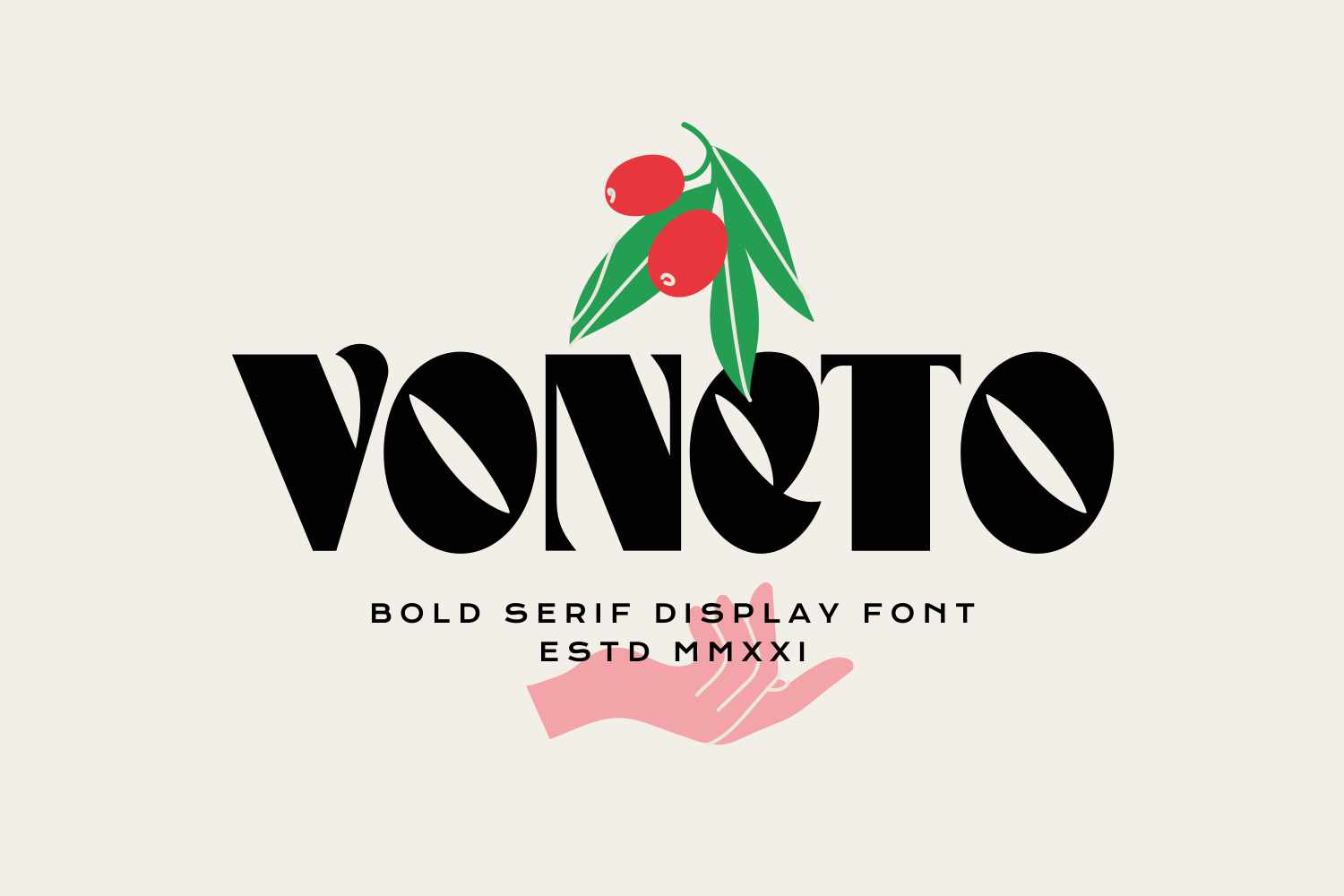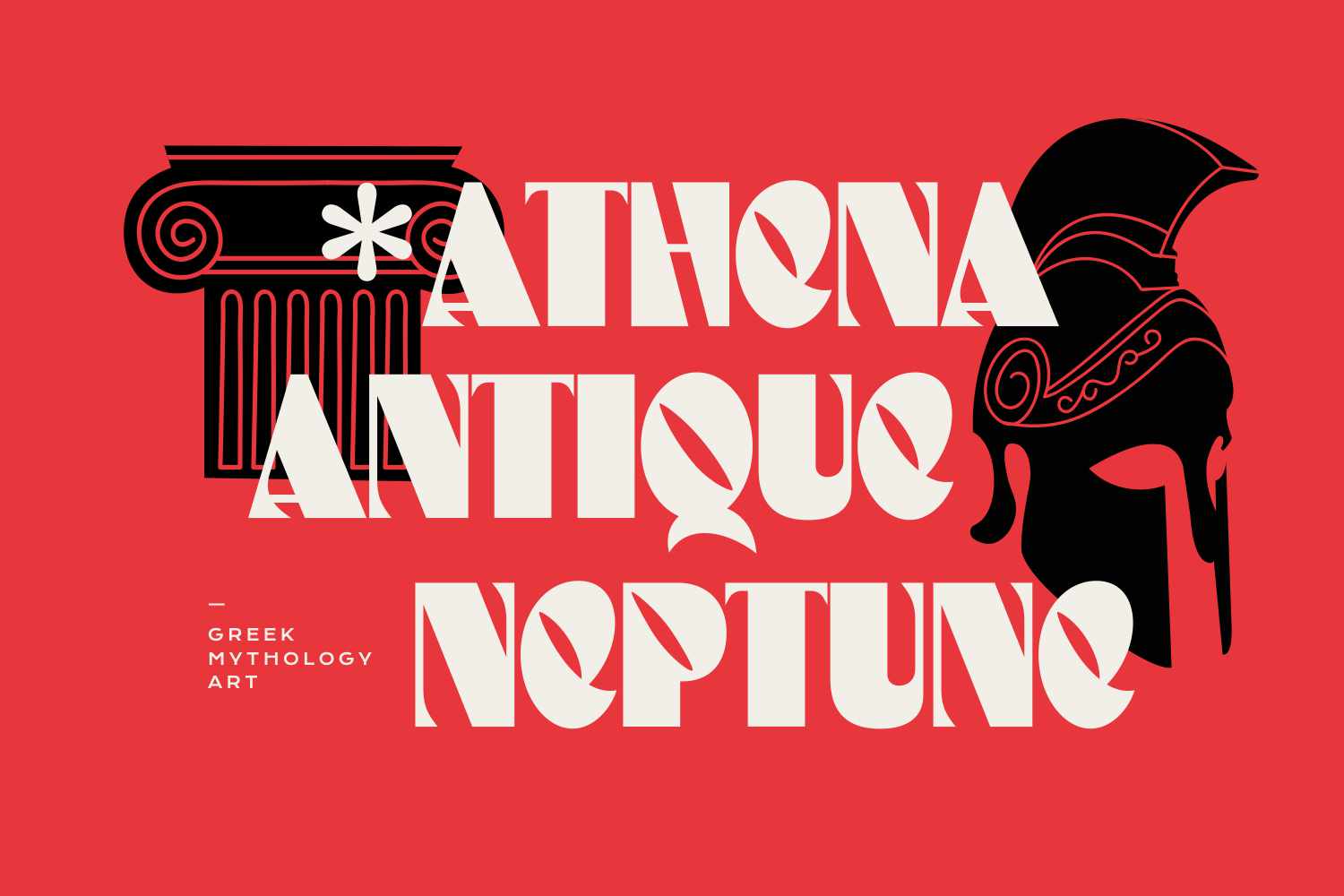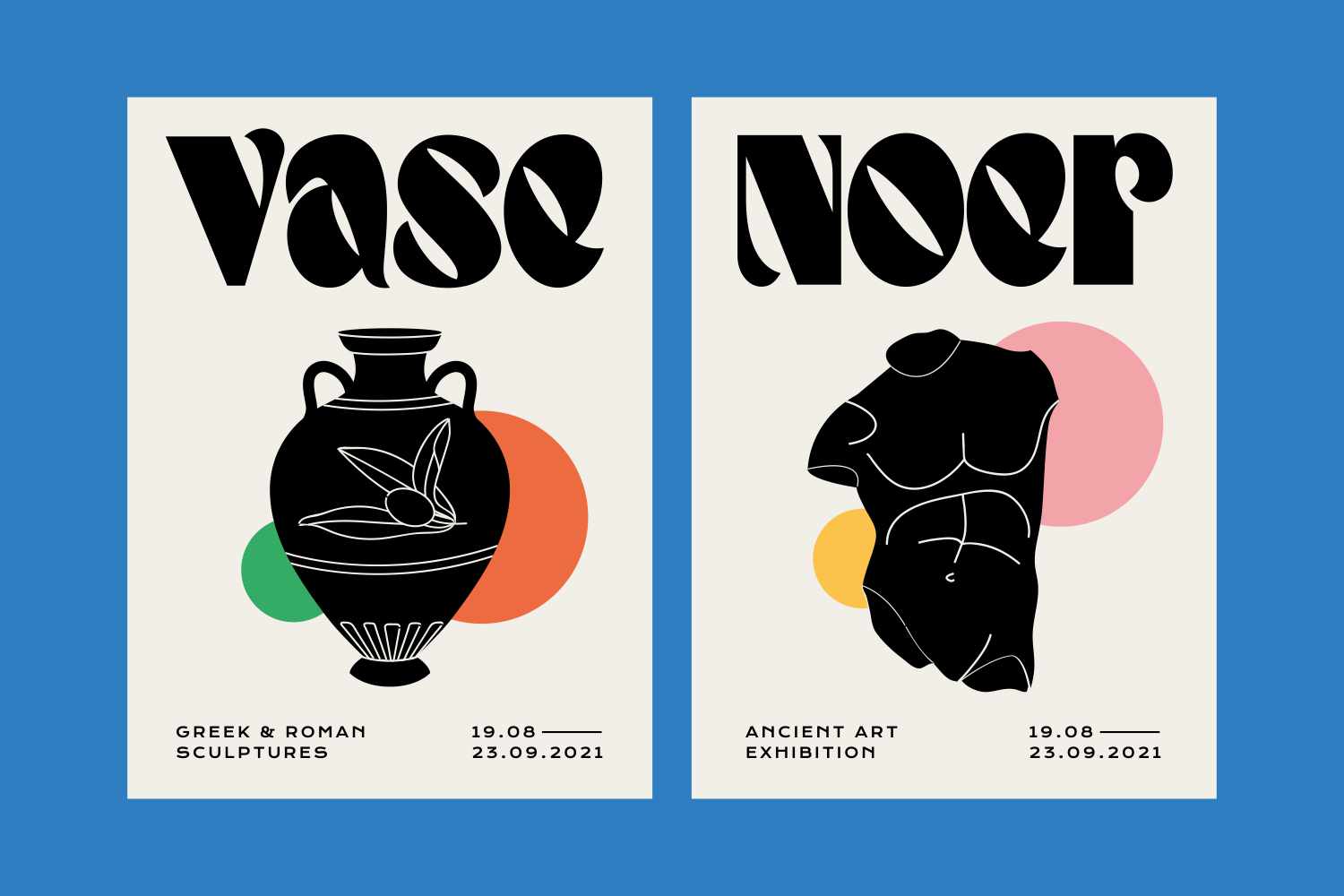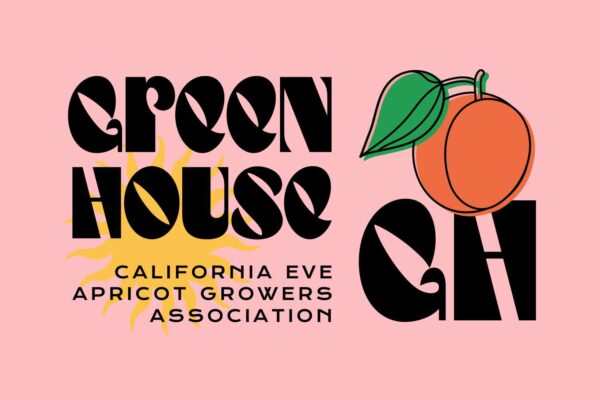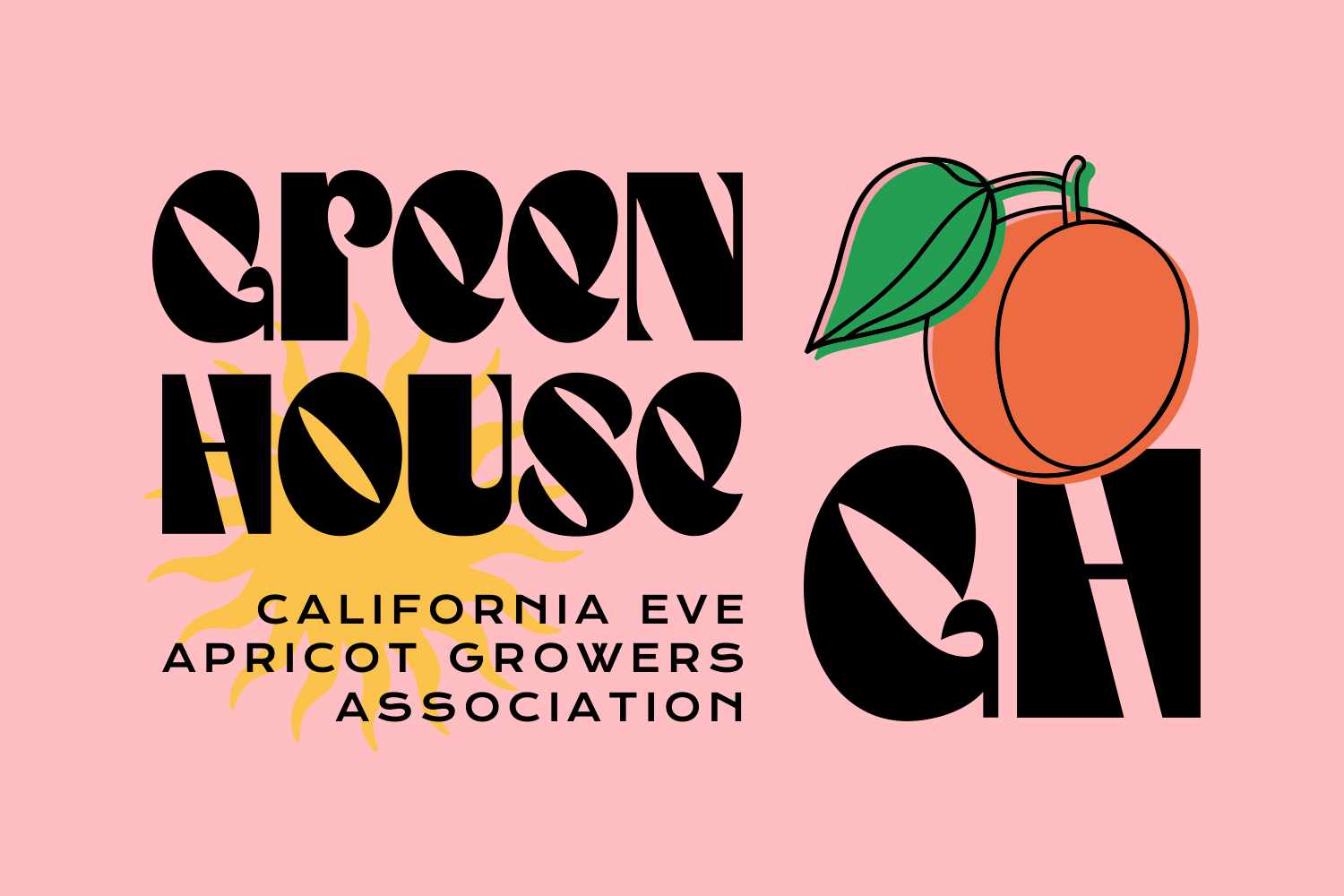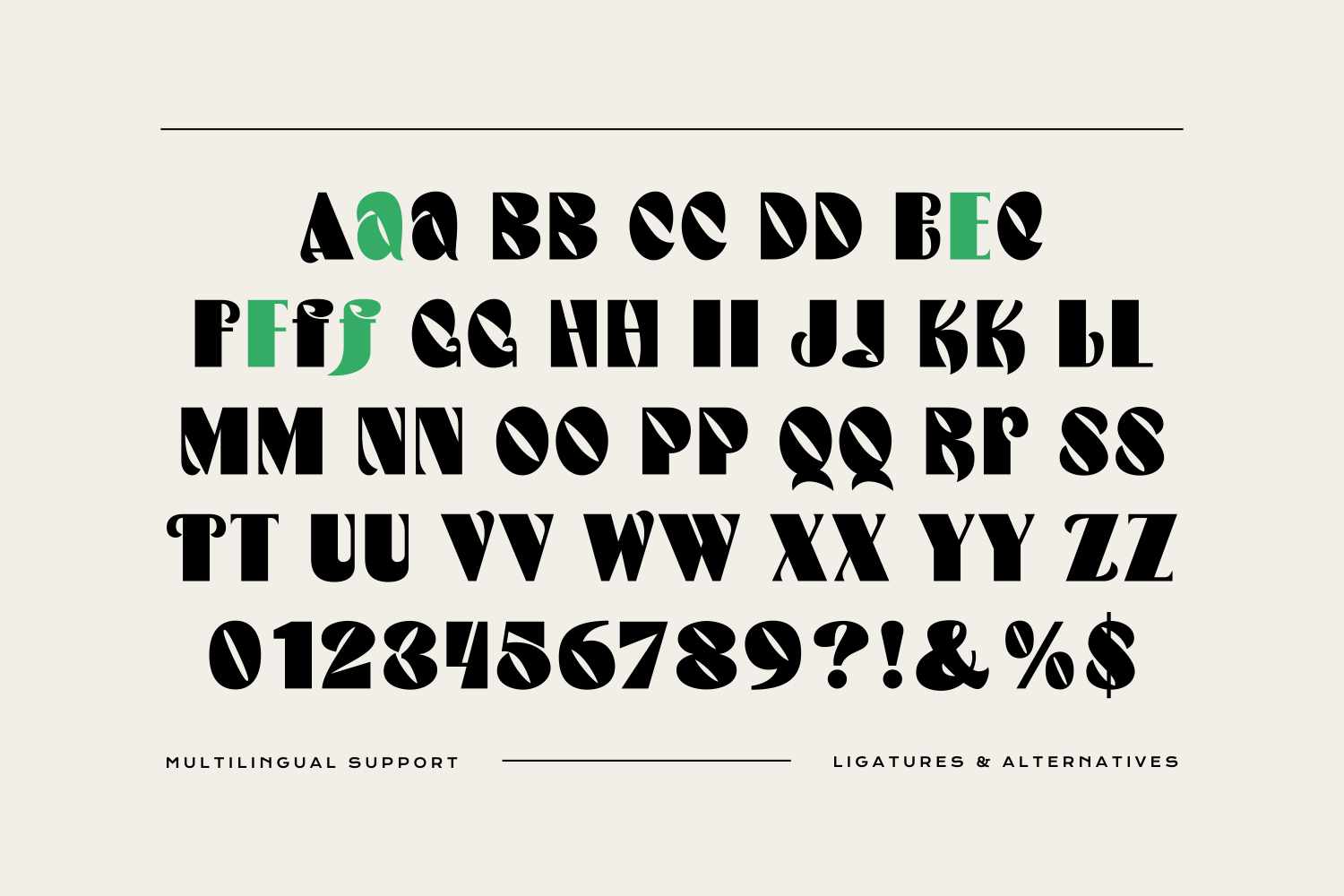
Voneto
Voneto is a bold serif display font that merges strong geometric forms with playful ligature twists, creating a unique retro-futuristic feel. Each character is carefully designed with high contrast strokes and distinctive cutout details that evoke vintage poster typography while maintaining a sharp, modern appeal. It’s ideal for branding, packaging, logos, and display headlines that demand attention and style.
With support for alternates and multilingual characters, Voneto is both expressive and versatile. Its theatrical flair and bold silhouette make it perfect for creative campaigns, editorial layouts, or anything that aims to stand out visually. Whether you’re channeling Greek classicism or art deco vibes, Voneto adds power and elegance in equal measure.